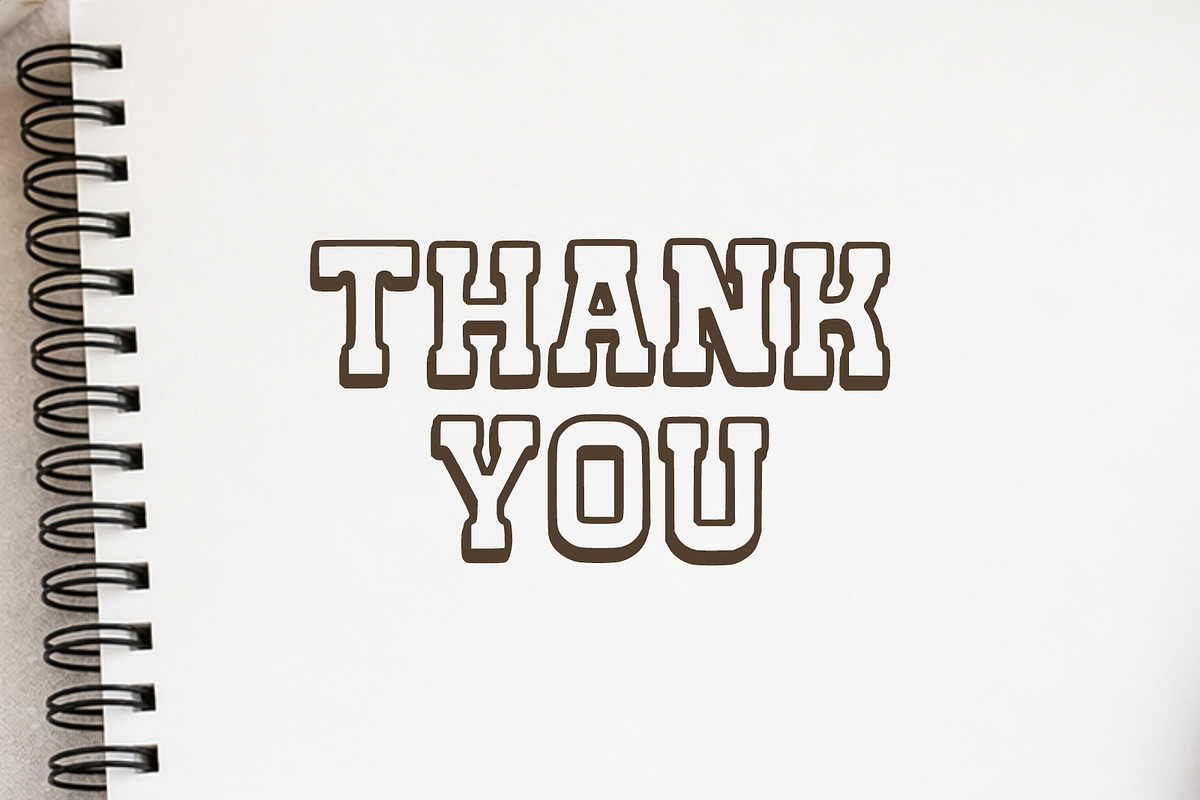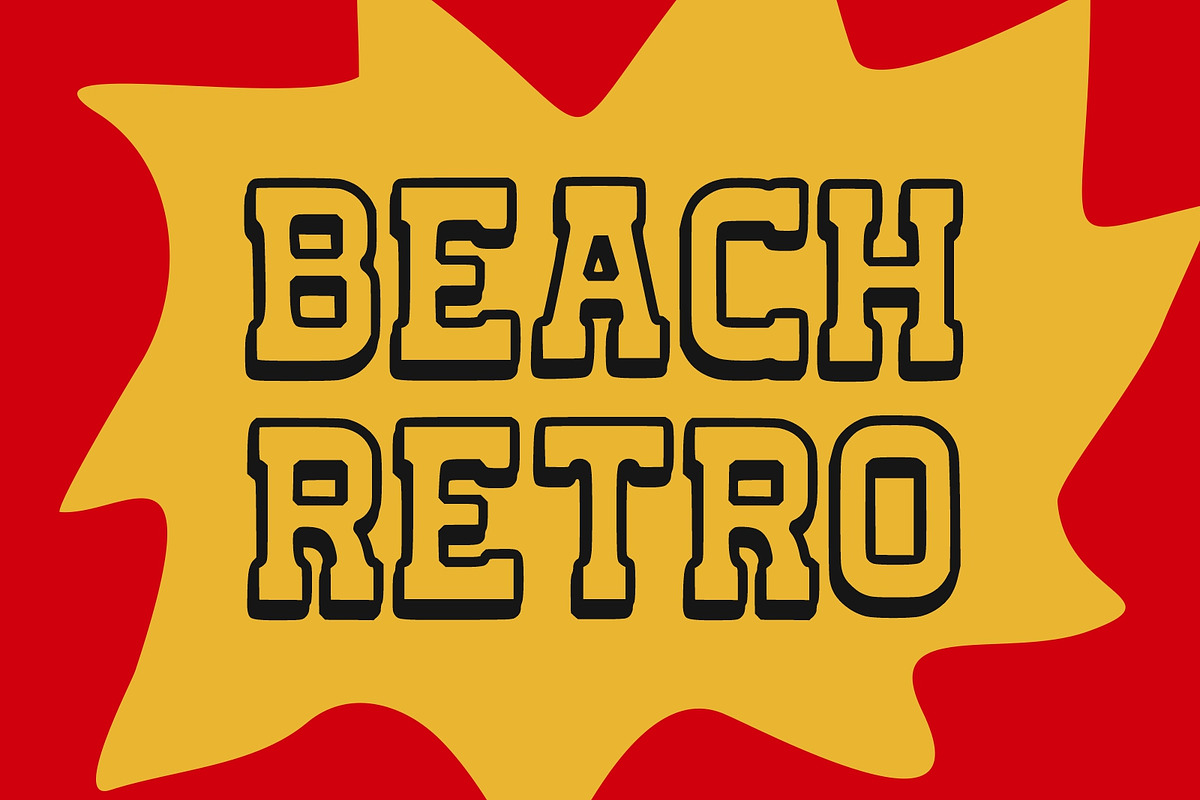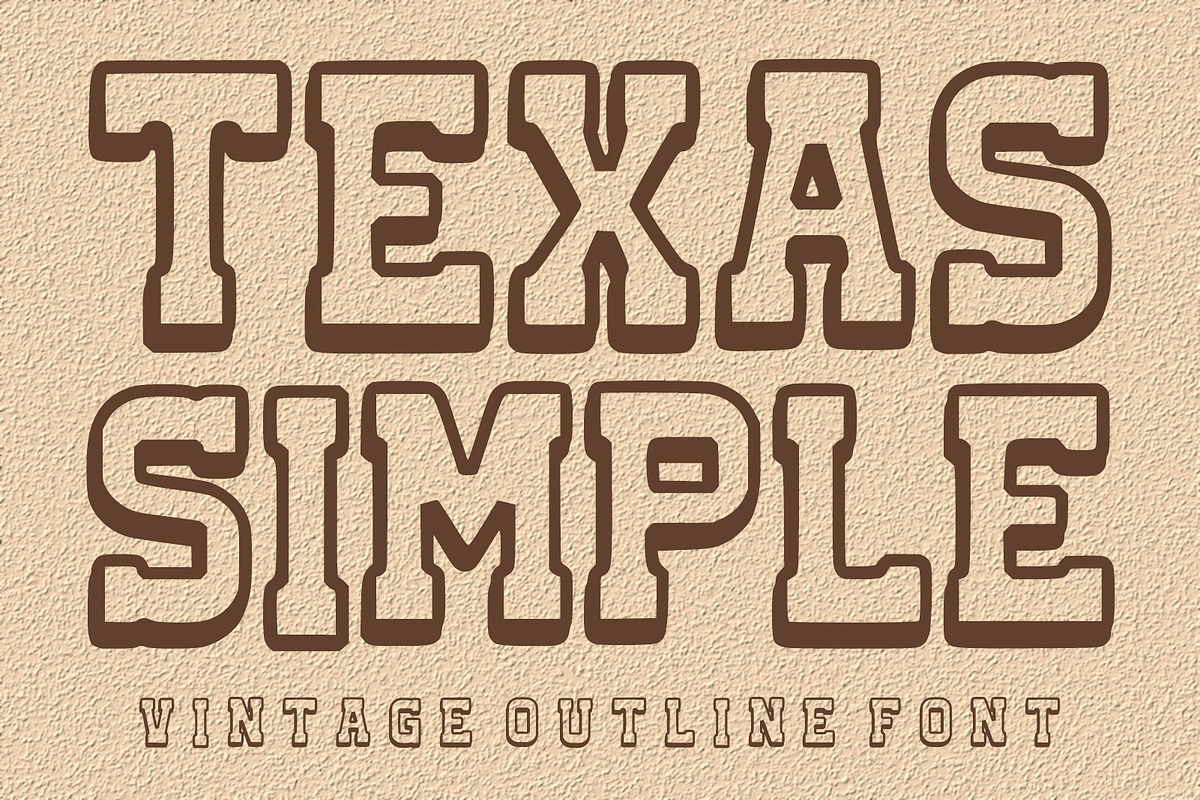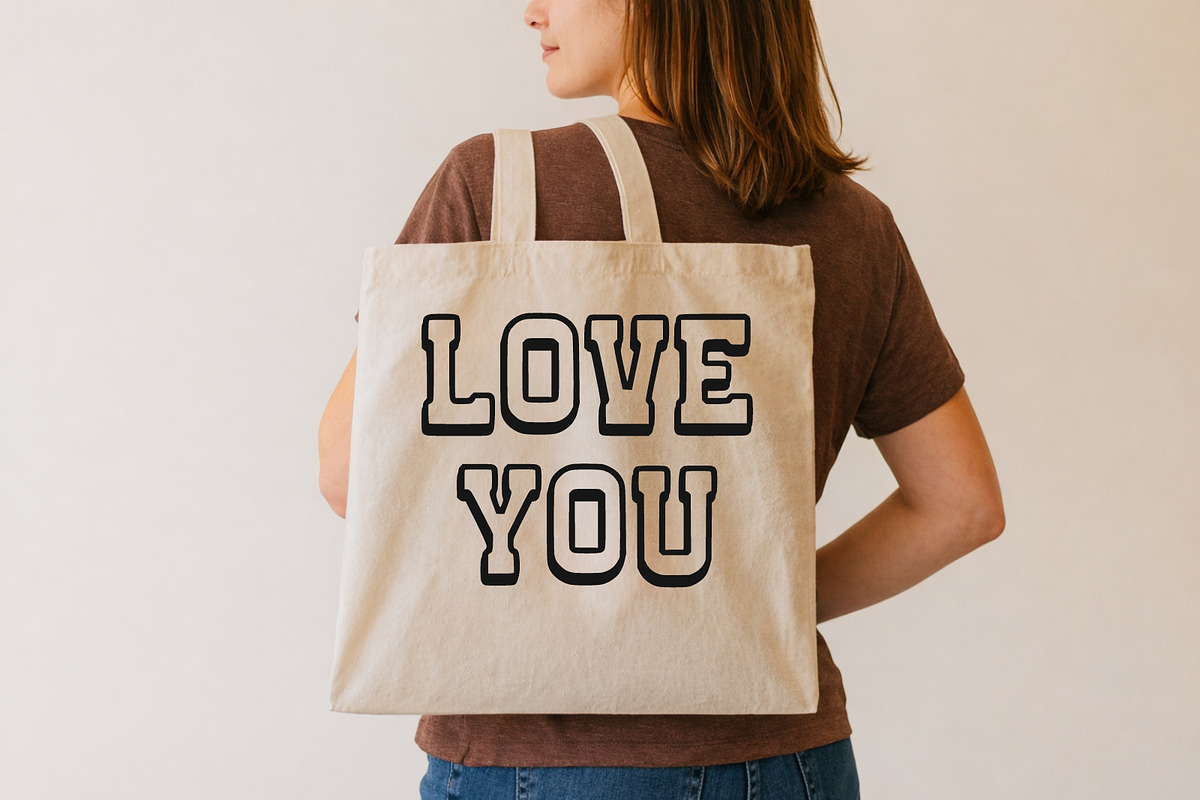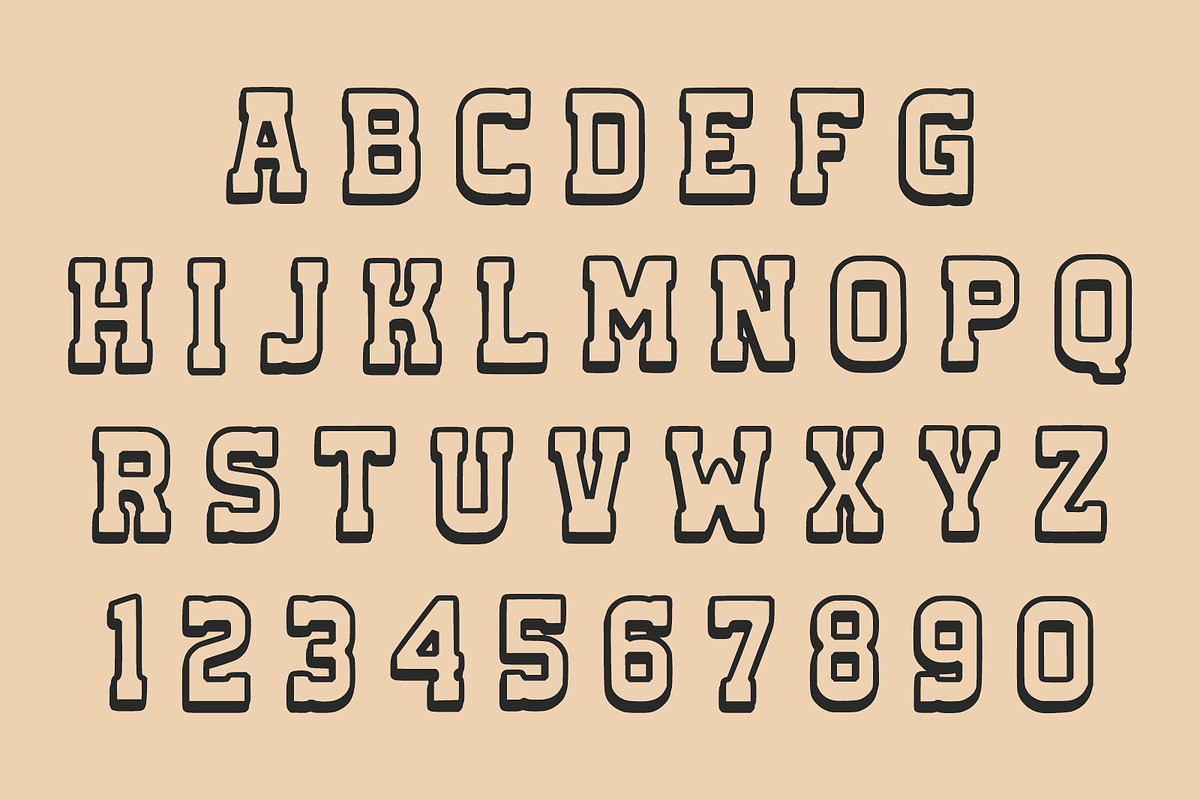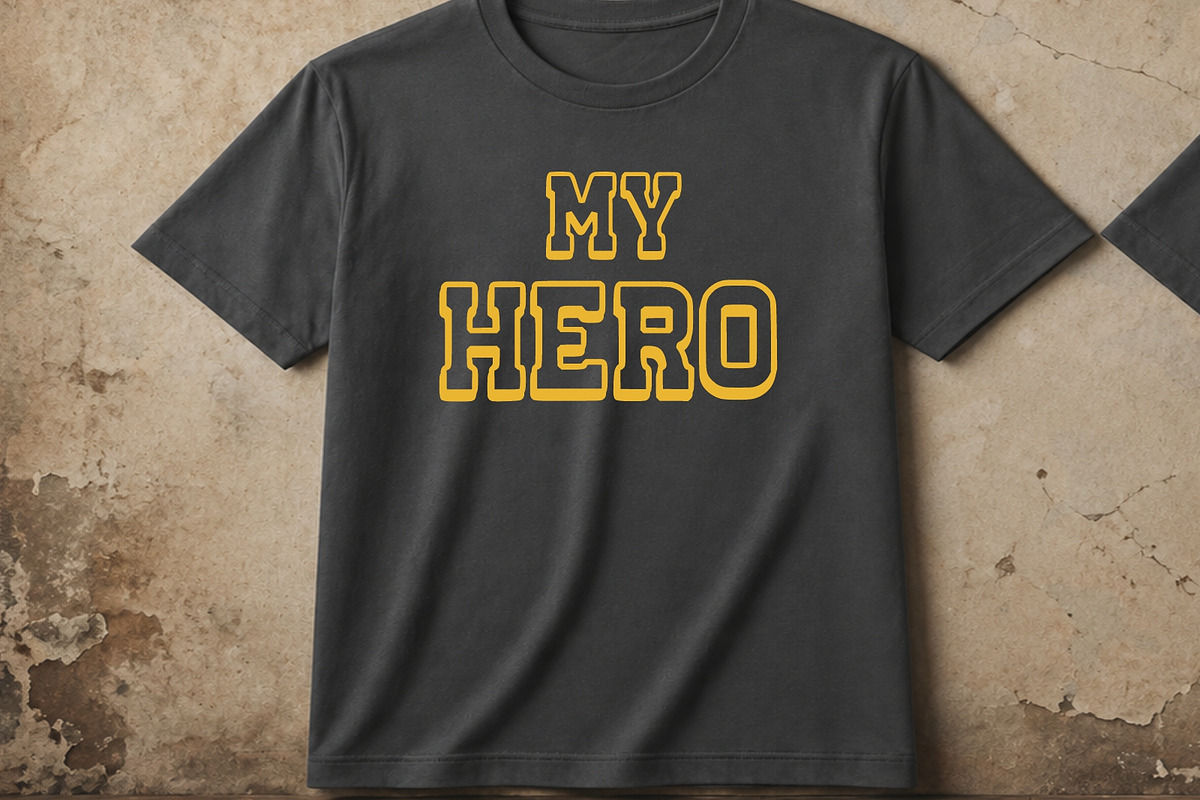
Texas Simple
Texas Simple is a clean and bold vintage outline font inspired by classic western and retro signage styles. Featuring strong outlined letterforms with a minimal yet rugged appearance, this font is perfect for logos, posters, branding, packaging, t-shirt designs, and vintage-themed projects. Its balanced combination of simplicity and western charm makes it versatile for both modern and nostalgic design needs.